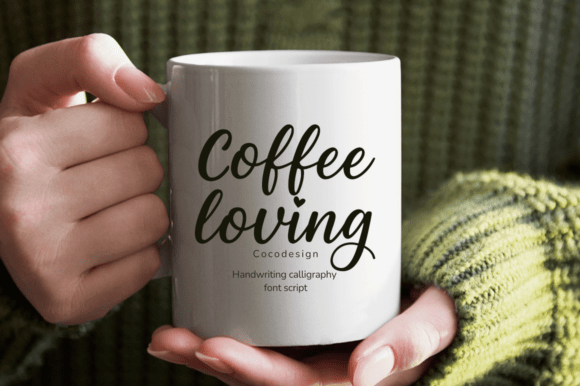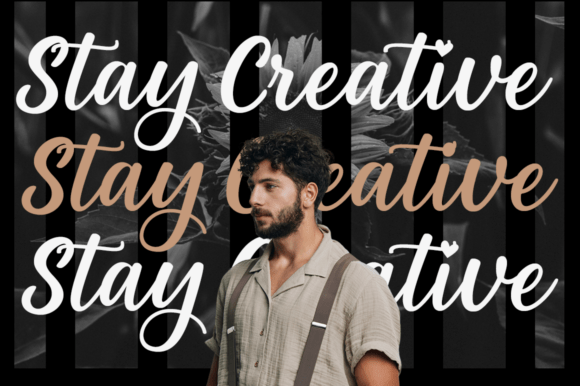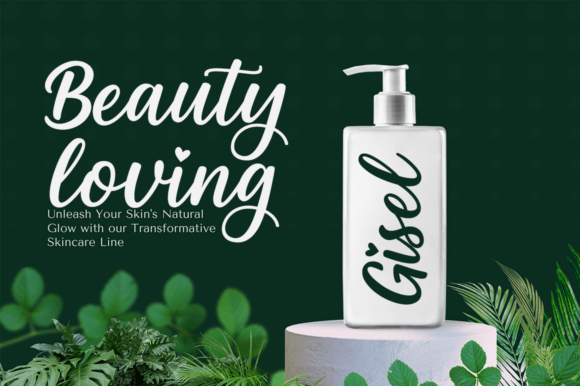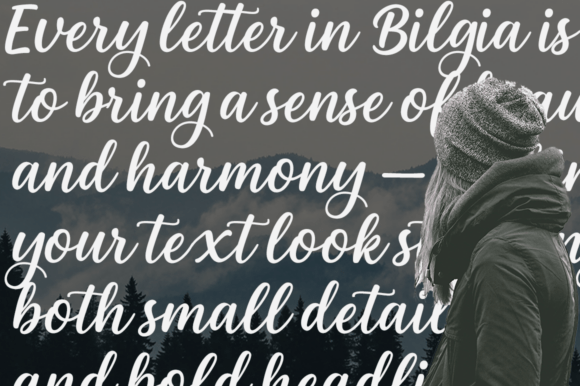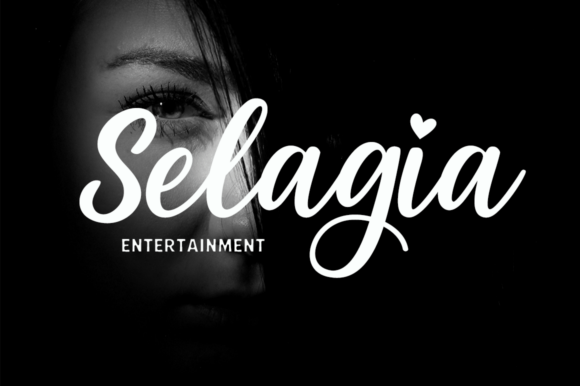
Bilgia Font: Elevate Your Designs with Elegance and Romance
In the world of typography, few fonts capture the essence of elegance, warmth, and romance as beautifully as Bilgia. This modern calligraphy font is a masterpiece of design, perfect for crafters and designers looking to infuse their projects with a touch of sophistication and charm. With its smooth, flowing strokes and delicate heart accents, Bilgia is an excellent choice for a wide range of design applications, from wedding stationery to branding for beauty products.
The Beauty of Bilgia
Bilgia is more than just a font; it’s an expression of emotion and style. Every stroke is carefully crafted to flow smoothly, creating a beautiful handwritten rhythm that brings a sense of warmth and personality to your designs. The subtle heart details woven throughout the font add a playful yet graceful feel, making it perfect for projects that require a touch of love and celebration.
One of the standout features of Bilgia is its versatility. This font shines in both print and digital formats, making it an excellent choice for a variety of projects. Whether you’re creating:
- Wedding invitations that require a touch of elegance and romance
- Valentine’s Day designs that need to convey love and affection
- Branding for beauty products that demands sophistication and charm
- Heartfelt quotes that require a touch of warmth and personality
Bilgia is the perfect companion for designers and crafters looking to create stunning typography.
What Makes Bilgia Special?
Bilgia’s unique blend of smooth, flowing curves and delicate heart accents sets it apart from other fonts. The font’s graceful, brush-style strokes give it a hand-lettered feel, making it perfect for projects that require a personal touch. With Bilgia, you can:
- Create wedding stationery that exudes elegance and romance
- Design greeting cards that convey love and affection
- Develop branding projects that demand sophistication and charm
- Produce stylish social media quotes that stand out from the crowd
Why Choose Bilgia?
There are many reasons why Bilgia is an excellent choice for designers and crafters. Here are just a few:
- Elegance and sophistication: Bilgia’s smooth, flowing strokes and delicate heart accents bring a touch of elegance and sophistication to any project.
- Romantic and feminine touch: The font’s subtle heart details and flowing curves add a romantic and feminine touch to every project.
- Versatility: Bilgia shines in both print and digital formats, making it perfect for a wide range of design applications.
- Hand-lettered feel: The font’s brush-style strokes give it a hand-lettered feel, making it perfect for projects that require a personal touch.
Tips for Using Bilgia
To get the most out of Bilgia, here are a few tips:
- Experiment with different sizes: Bilgia’s elegant strokes and delicate heart accents look great in a variety of sizes, from large headings to smaller body text.
- Pair with complementary fonts: Bilgia pairs beautifully with other fonts, so don’t be afraid to experiment with different combinations to find the perfect look for your project.
- Use in digital and print formats: Bilgia’s versatility makes it perfect for both digital and print projects, so don’t be afraid to use it in a variety of applications.
In conclusion, Bilgia is a stunning modern calligraphy font that is sure to elevate your designs with its elegance, warmth, and romance. With its smooth, flowing strokes and delicate heart accents, Bilgia is perfect for a wide range of design applications, from wedding stationery to branding for beauty products. Whether you’re a designer or crafter, Bilgia is an excellent choice for anyone looking to add a touch of sophistication and charm to their projects.